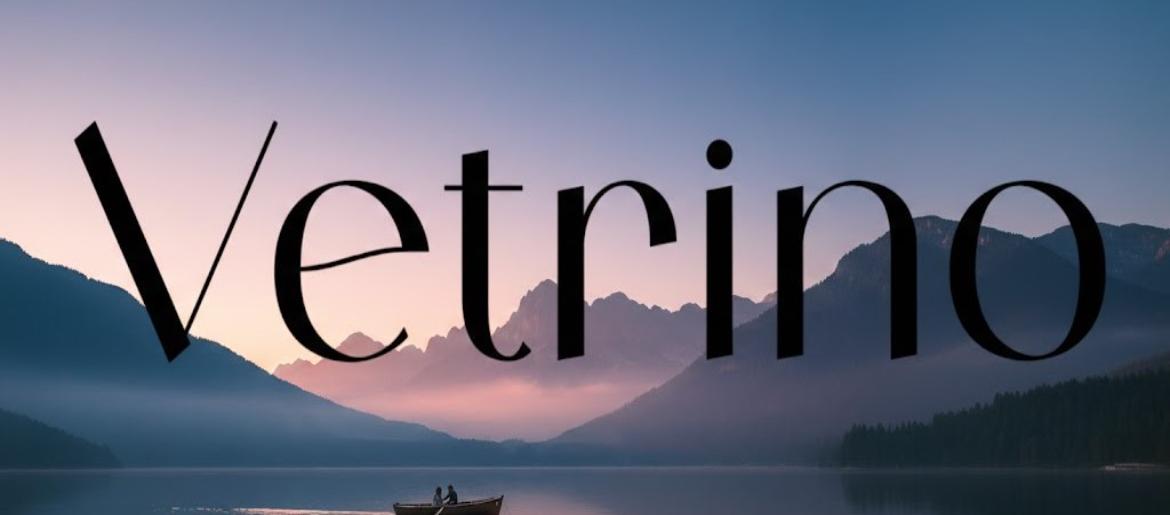
Vetrino Font
Vetrino Font is a stylish display typeface featuring elegant curves and modern decorative detailing. It delivers a refined and artistic visual presence, making it suitable for branding, logos, packaging, posters, and luxury-themed design projects. Its distinctive personality and balanced readability help compositions stand out while fitting seamlessly into creative and expressive free fonts collections.